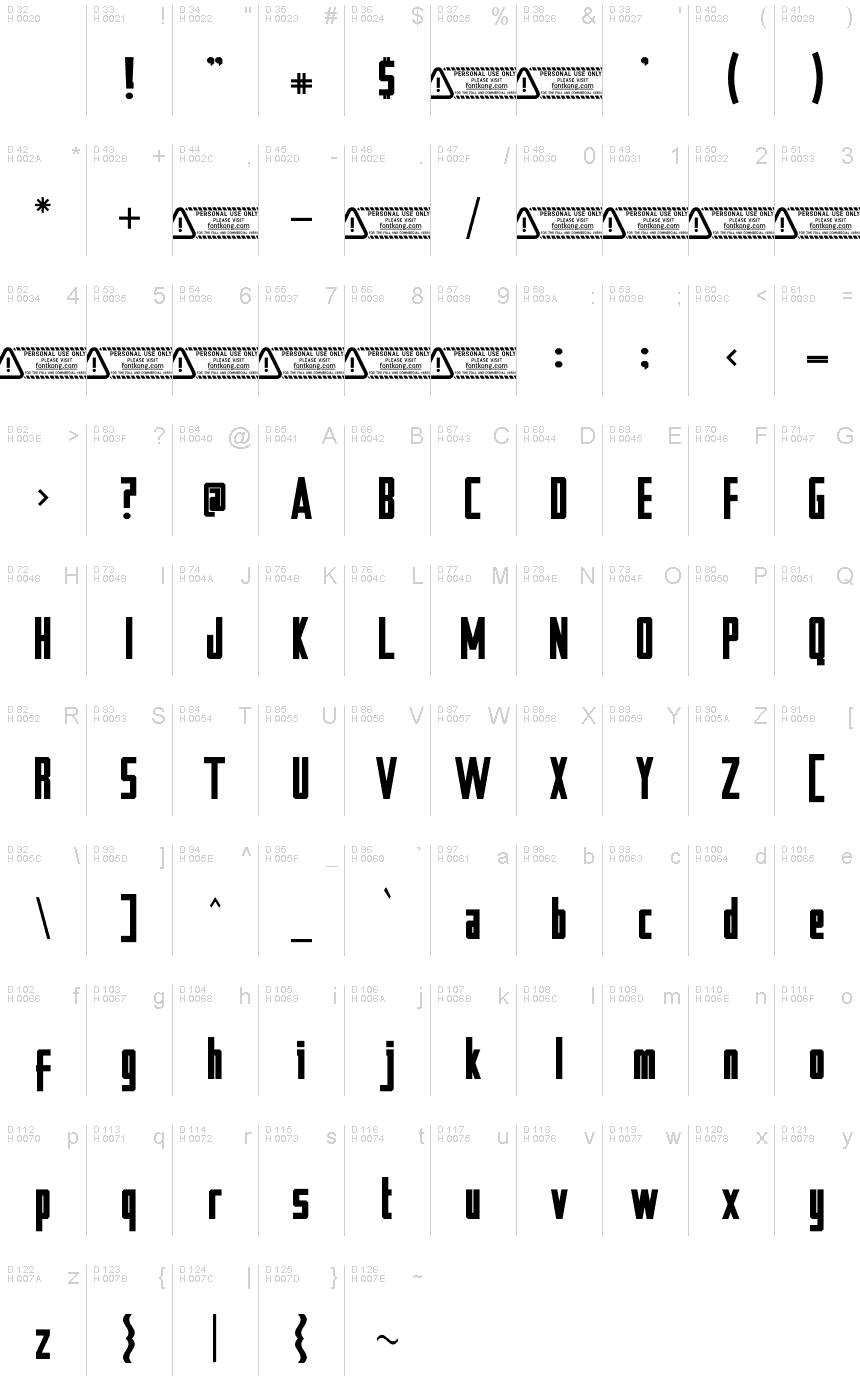
Battlechips
Experience the cutting-edge appeal of Battlechips, a display font meticulously crafted by Kong Font. With its semi-bold, extra-condensed profile, this techno-style typeface is a game-changer for designers seeking to infuse their projects with a futuristic edge.
Perfect for high-impact headlines and striking branding, Battlechips promises to deliver a knockout punch to any creative endeavor. Engage your audience with its sleek contours and modernistic flair, making your message not just seen but remembered.